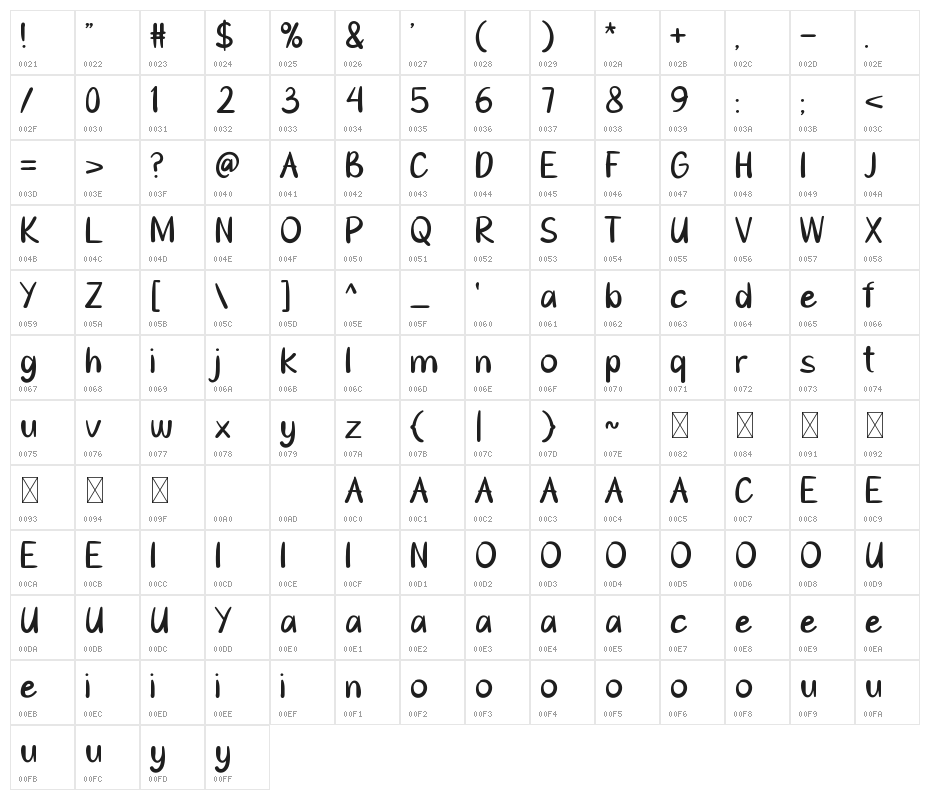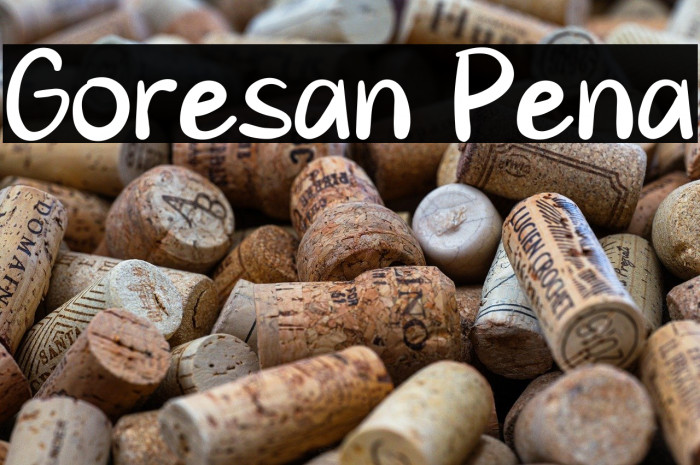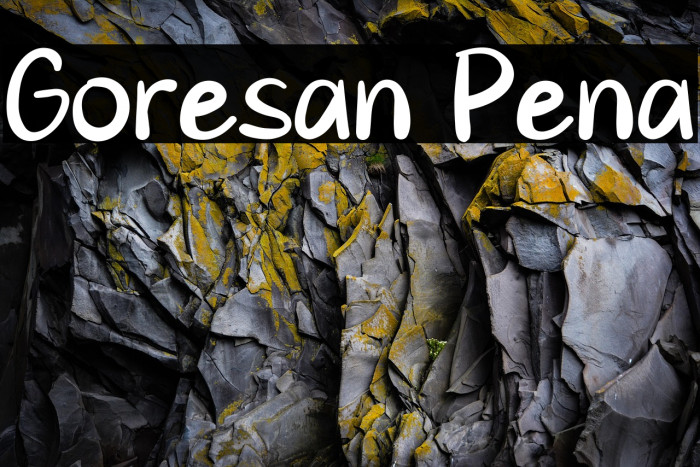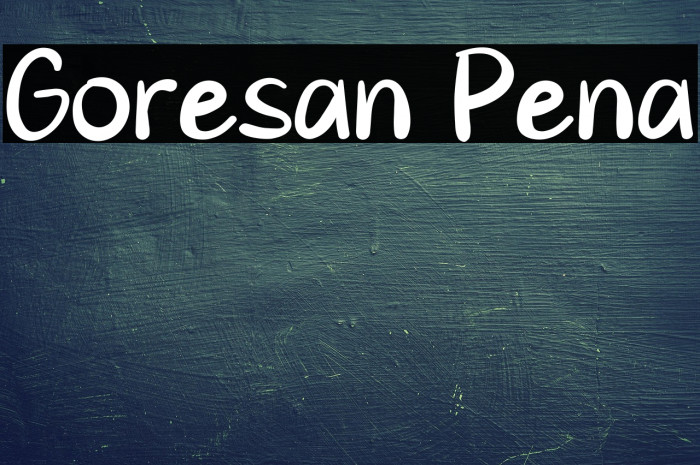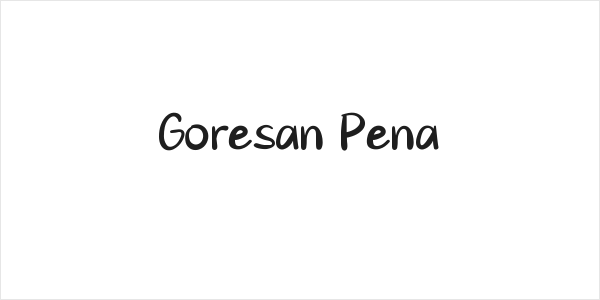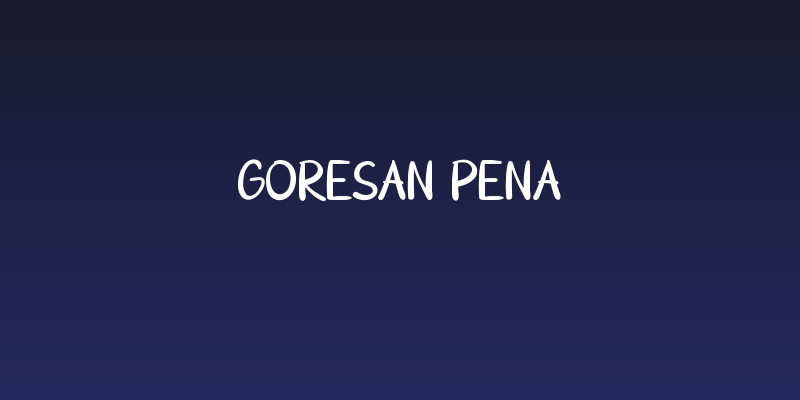
Goresan Pena Font
Goresan Pena Description
A playful, handwritten font with rounded edges and a casual style, suitable for informal and friendly designs.
| Use Case | Headlines, Informal text, Branding |
| Proposed Projects | Greeting cards, children's books, casual branding. |